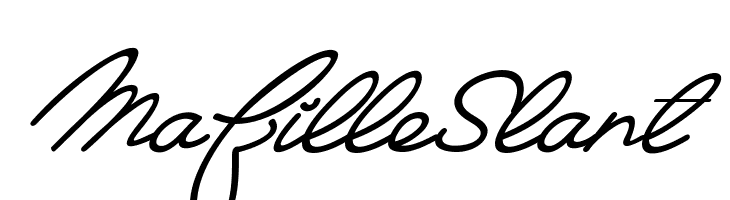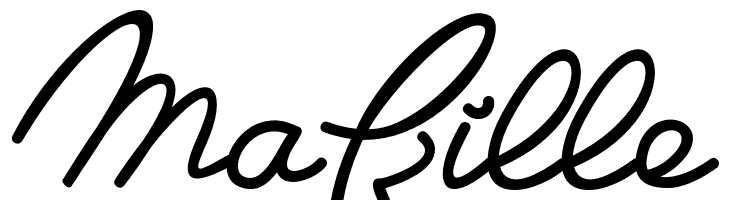
An elegant, flowing script font with graceful curves and continuous strokes.
A stylish, cursive script font with a modern handwritten feel.
An elegant script font with flowing, cursive style and intricate swashes.
An elegant and sophisticated script font with flowing, interconnected letters.
A flowing, handwritten script font with elegant, connected strokes.
A graceful script font with fluid, elegant strokes and a handwritten feel.
An elegant script font with flowing, cursive letterforms and artistic swashes.
A sophisticated script font with elegant loops and swashes, perfect for formal and creative projects.
A graceful cursive font with elegant, flowing characters.
A graceful and elegant script font with flowing cursive elements.
A flowing, cursive script font with a handwritten style.
An elegant, flowing script font with a natural handwritten style.
A refined serif font with elegant, elongated strokes and a modern aesthetic.
A bold, high-contrast serif font with a strong and elegant presence.
A bold, classic serif font with strong strokes and elegant design.
A classic serif font with elegant strokes and balanced proportions.
A sleek, elegant font with thin, delicate strokes and a modern aesthetic.
An elegant script font with flowing, cursive strokes and decorative flourishes.
A bold, decorative font with a three-dimensional effect and vintage flair.
A bold, decorative font with vintage flair and pronounced serifs.
An elegant script font with intricate swashes and flourishes, perfect for formal and decorative use.
An elegant script font with flowing, interconnected letters and ornate details.
An elegant script font with intricate, flowing lines and ornate flourishes.
A bold, 3D vintage-style font with textured detailing and shadow effects.
A bold, decorative font with a vintage, three-dimensional style.
A bold, sharp-edged decorative font with a vintage-modern blend.
An elegant script font with flowing, interconnected letters and ornate flourishes.
A sophisticated script font with elegant curves and a modern calligraphic style.
( TwoNineFive - Maximillian Limpo )
A bold, geometric font inspired by ancient runic alphabets with a modern twist.
( TwoNineFive - Maximillian Limpo )
A geometric, rune-inspired font with a minimalist and abstract style.
( TwoNineFive - Maximillian Limpo )
A geometric, rune-inspired decorative font with uniform line weight.
A modern, bold sans-serif font with a clean and geometric design.
A bold, modern sans-serif font with a strong and geometric design.
A bold, modern sans-serif font with geometric letterforms.